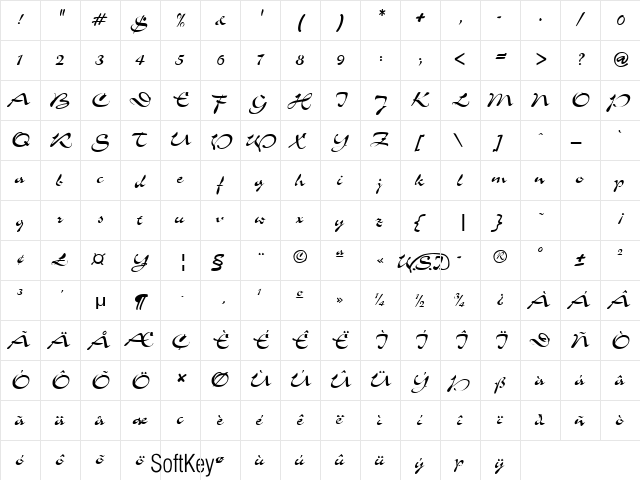
Slalom Regular Font Preview
Slalom Regular
Slalom Regular Font Details
Design Context for Slalom Typeface
Slalom is a composed and adaptable typeface that performs quietly and consistently across a wide range of design contexts.